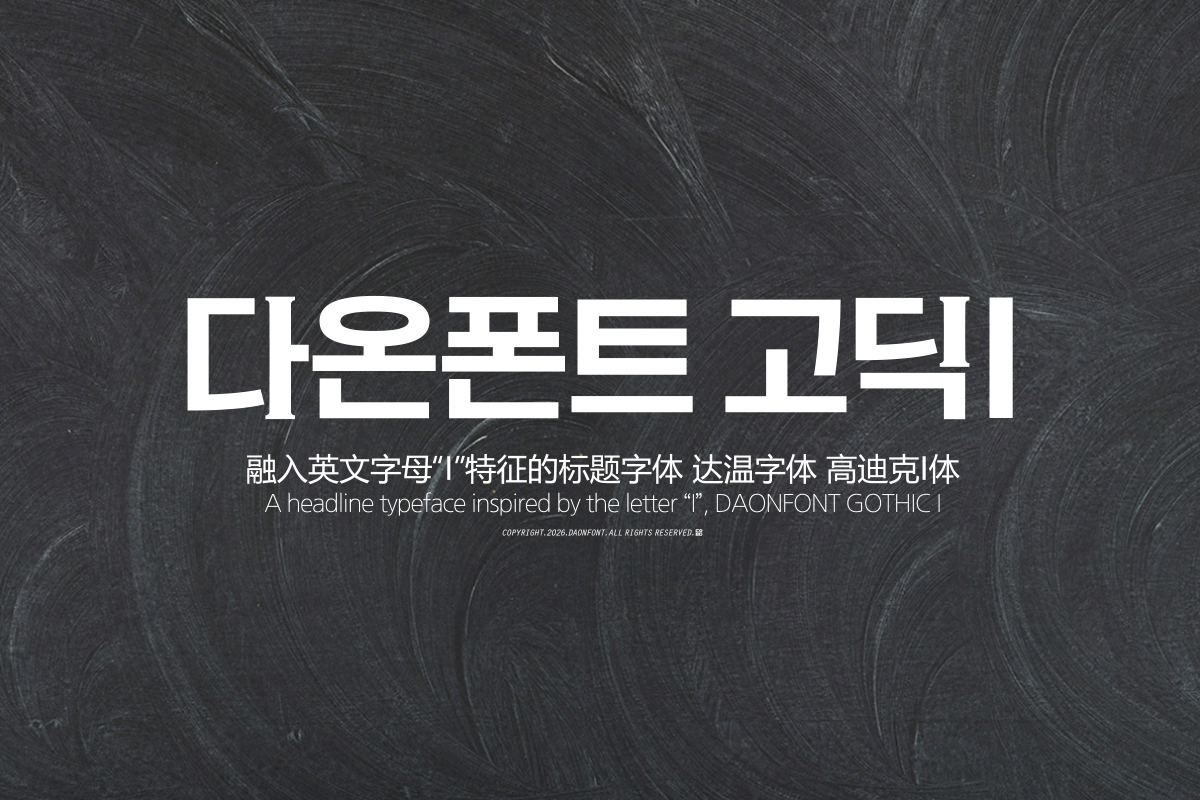
DAON GOTHIC I
'GOTHIC I' is a sub-headline typeface featuring distinctive columns reminiscent of the English letter I. Its individuality is more pronounced in title design than in body design.